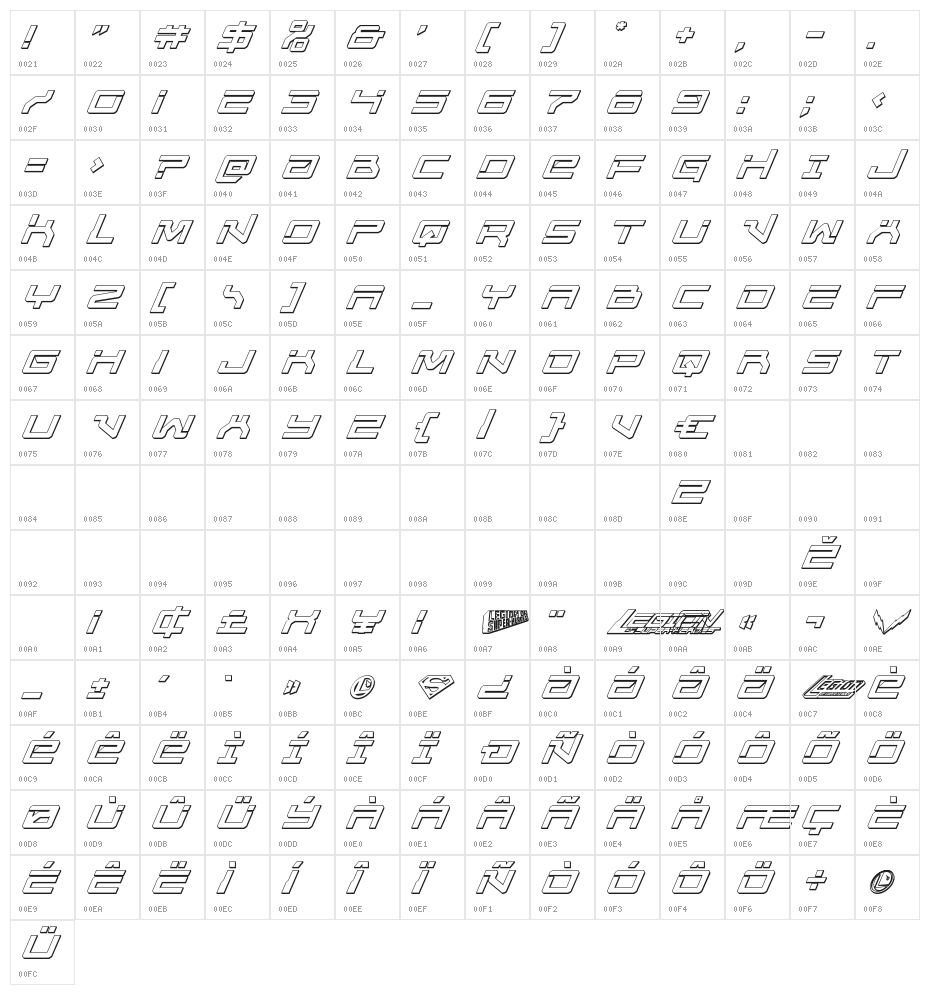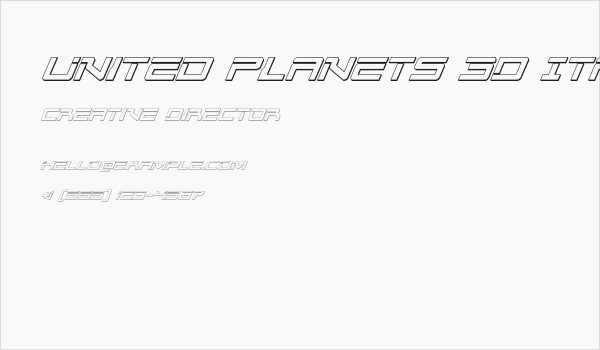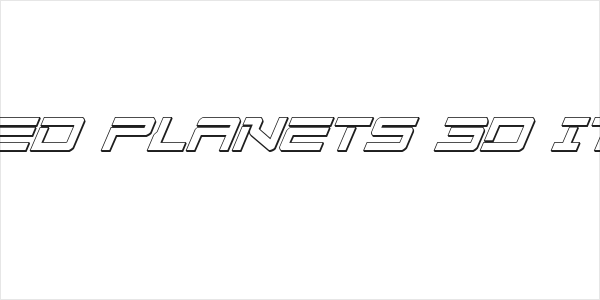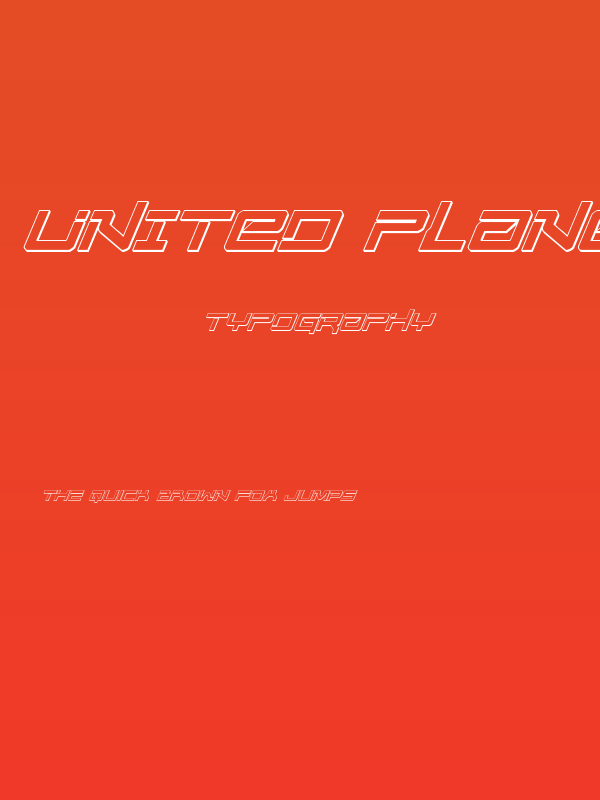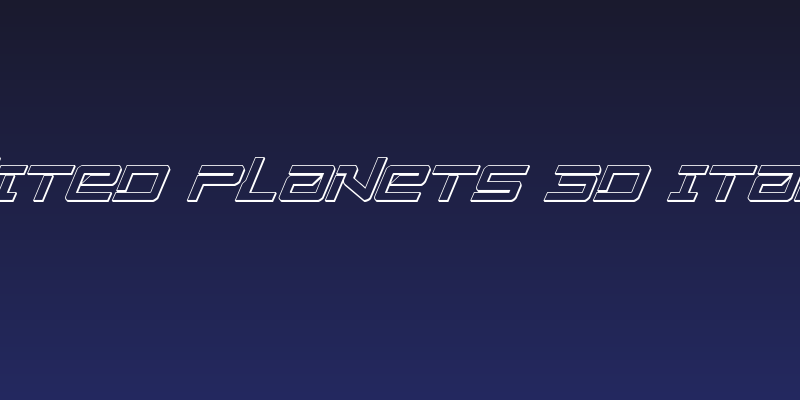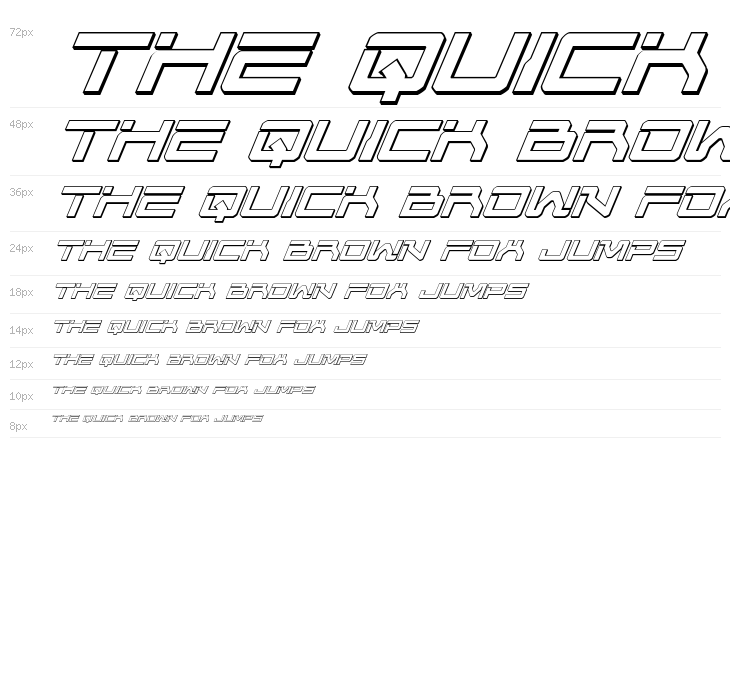
United Planets 3D Italic Font
United Planets 3D Italic Description
This font features a futuristic and dynamic design, characterized by its 3D italicized style. The letters have a geometric structure with sharp angles and a consistent stroke width, giving them a bold and impactful appearance. The 3D effect is achieved through a clever use of outlines and shading, creating a sense of depth and movement. The uppercase and lowercase letters maintain a uniform style, while the numerals and special characters seamlessly integrate into the overall design. This font is ideal for projects that require a modern and technological aesthetic.
Proposed ProjectsIdeal for sci-fi themed posters, video game graphics, technology branding, and futuristic event invitations.